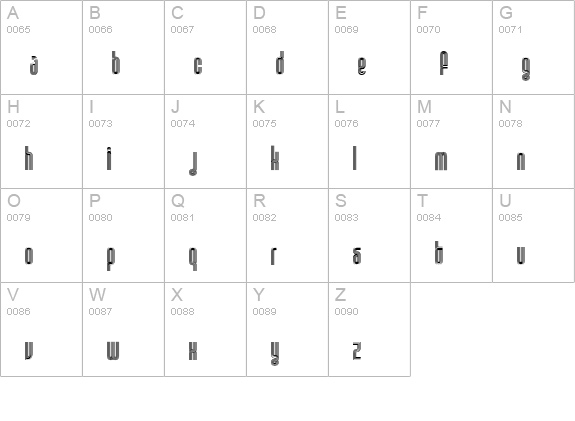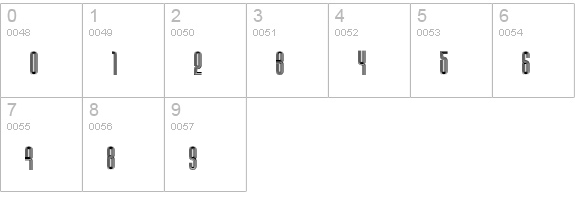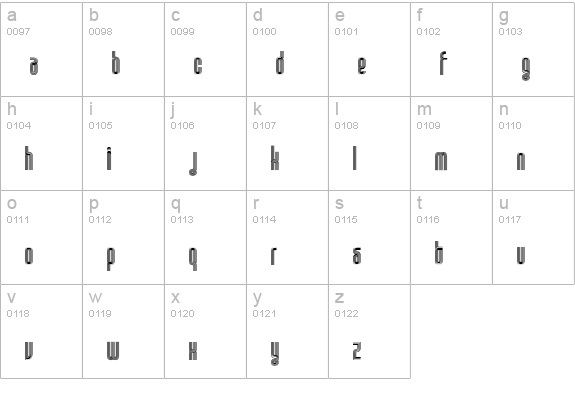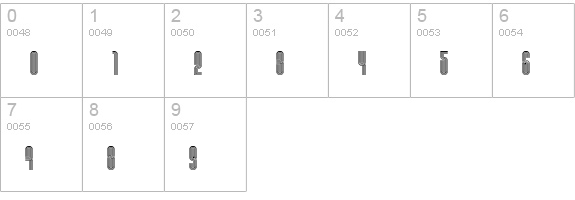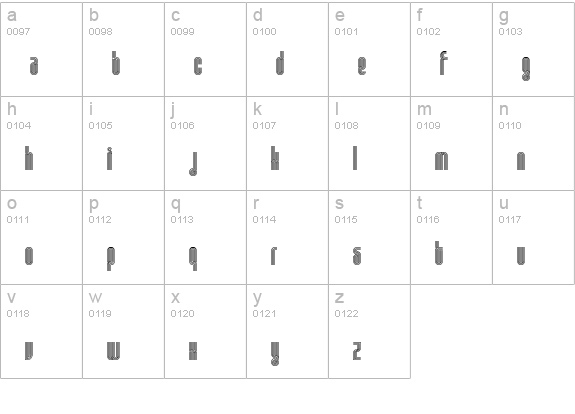
Disco 1 font is a vibrant and energetic typeface that exudes a retro disco vibe. With its funky curves and playful design, this font is perfect for adding a touch of groovy flair to your projects. Whether you're working on a party invitation, a music poster, or a retro-themed design, Disco 1 font is sure to make a statement. The best part? Disco 1 font is completely free to download at FontsMarket.com. So go ahead and grab this funky font to add some disco fever to your next project!